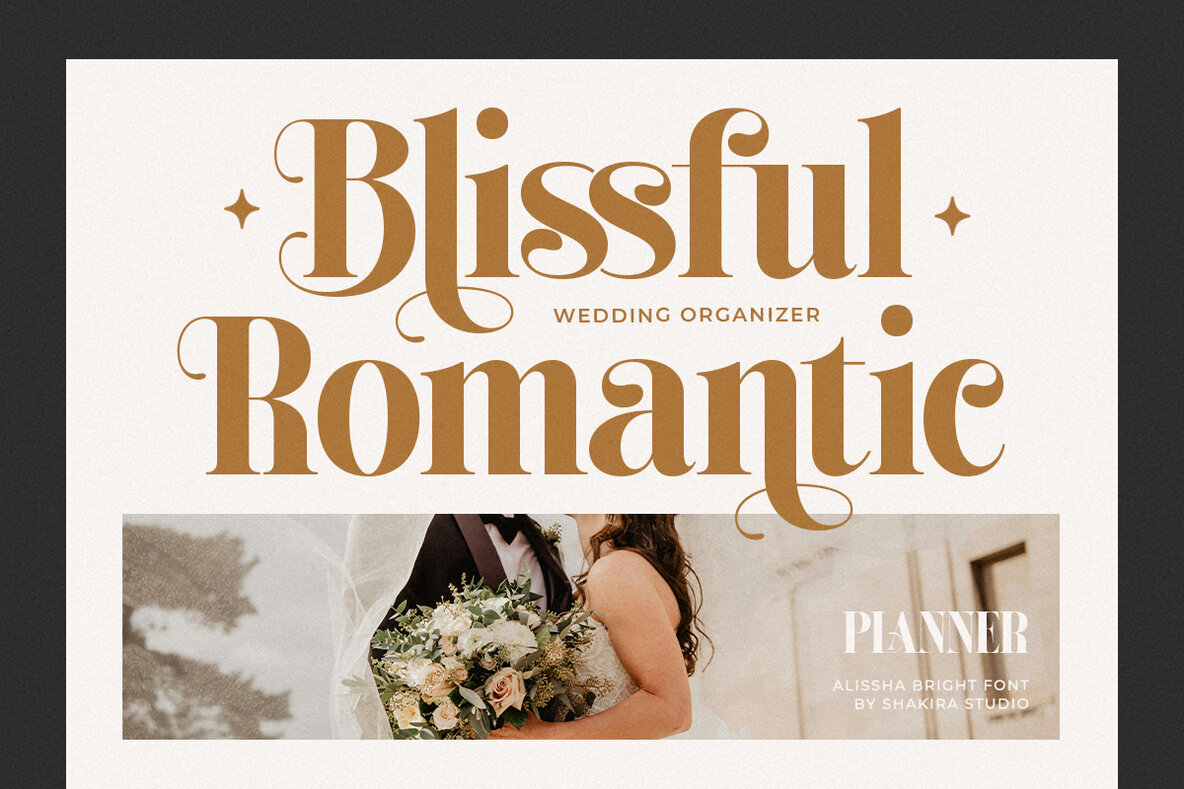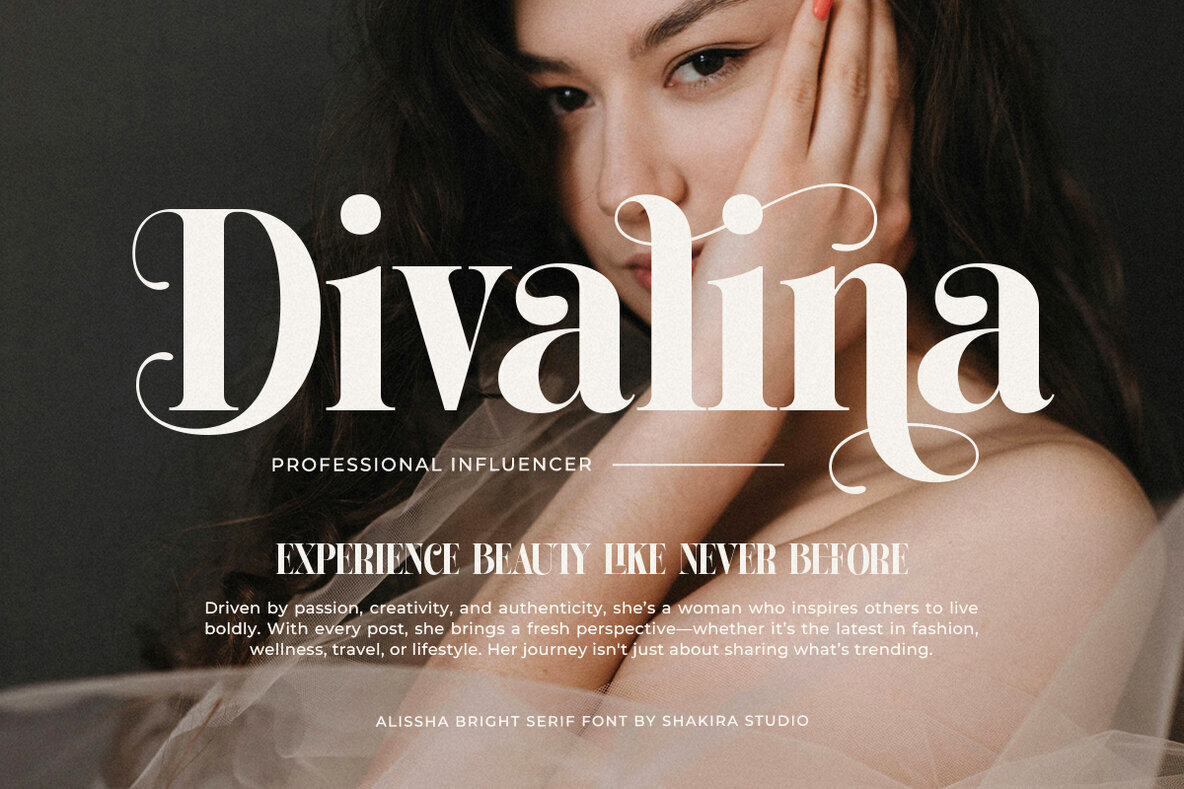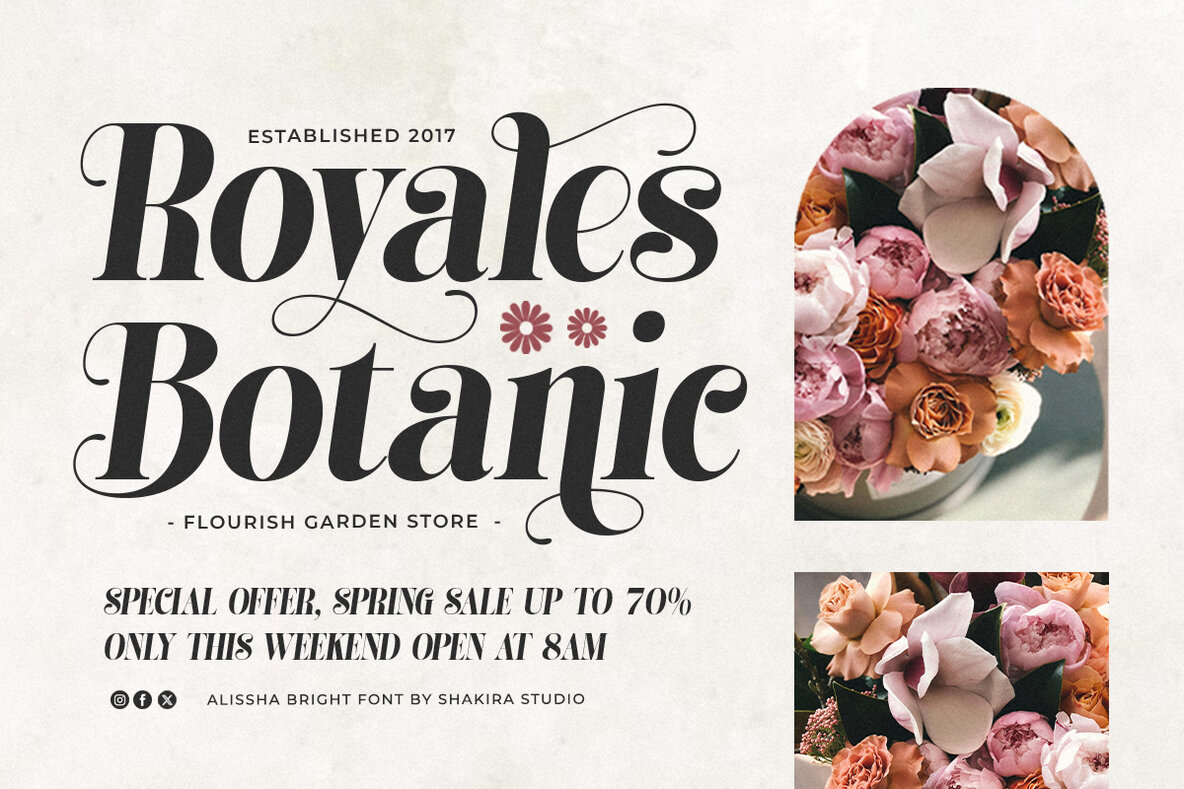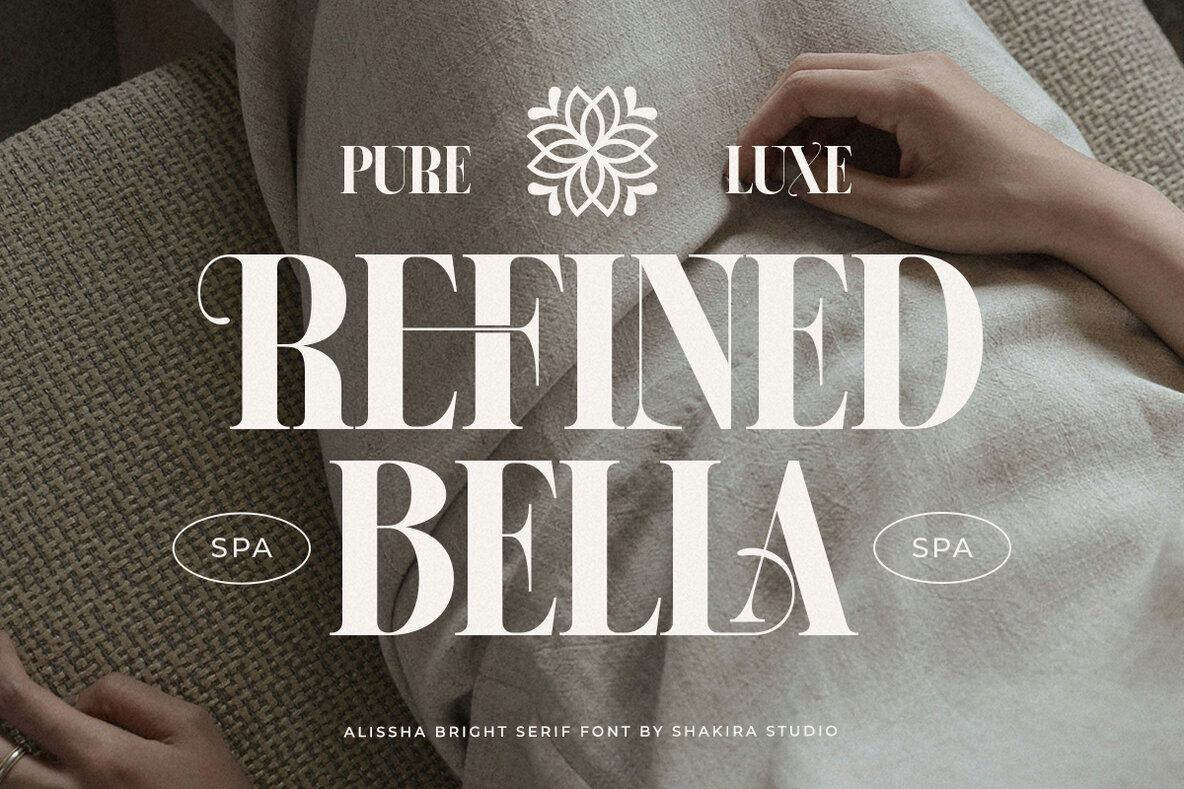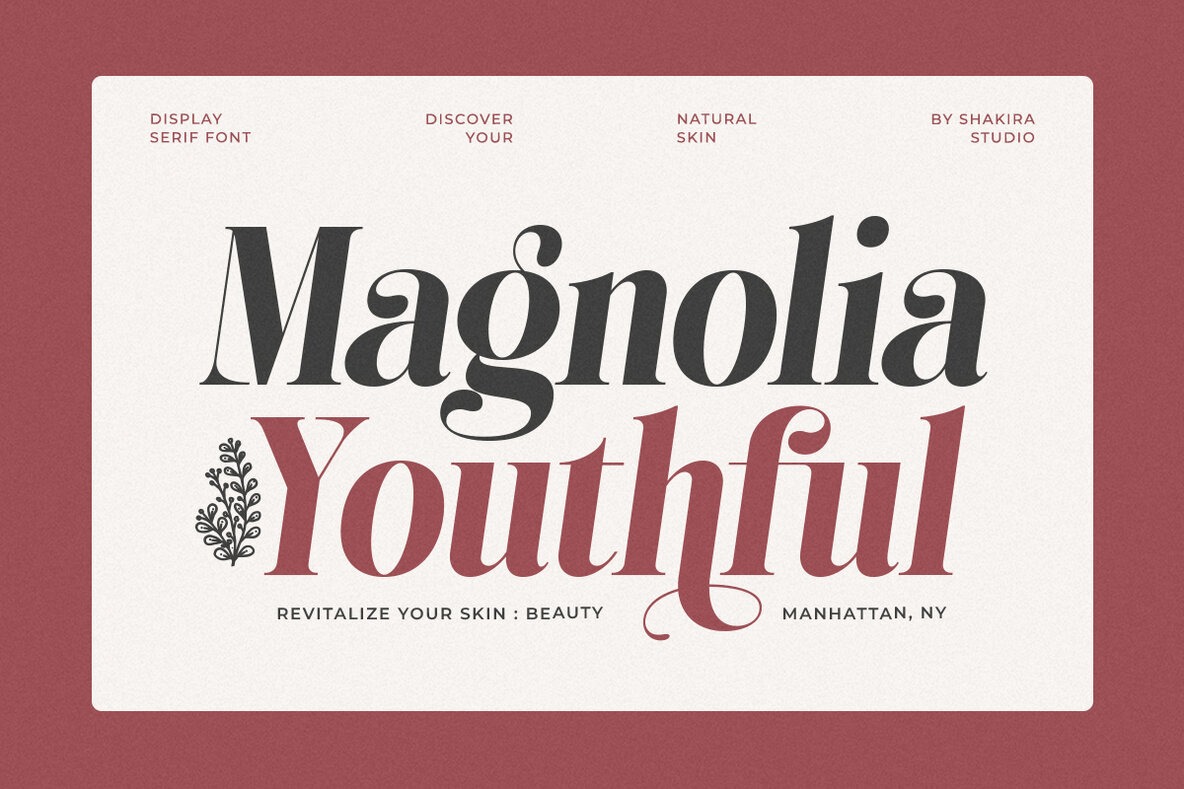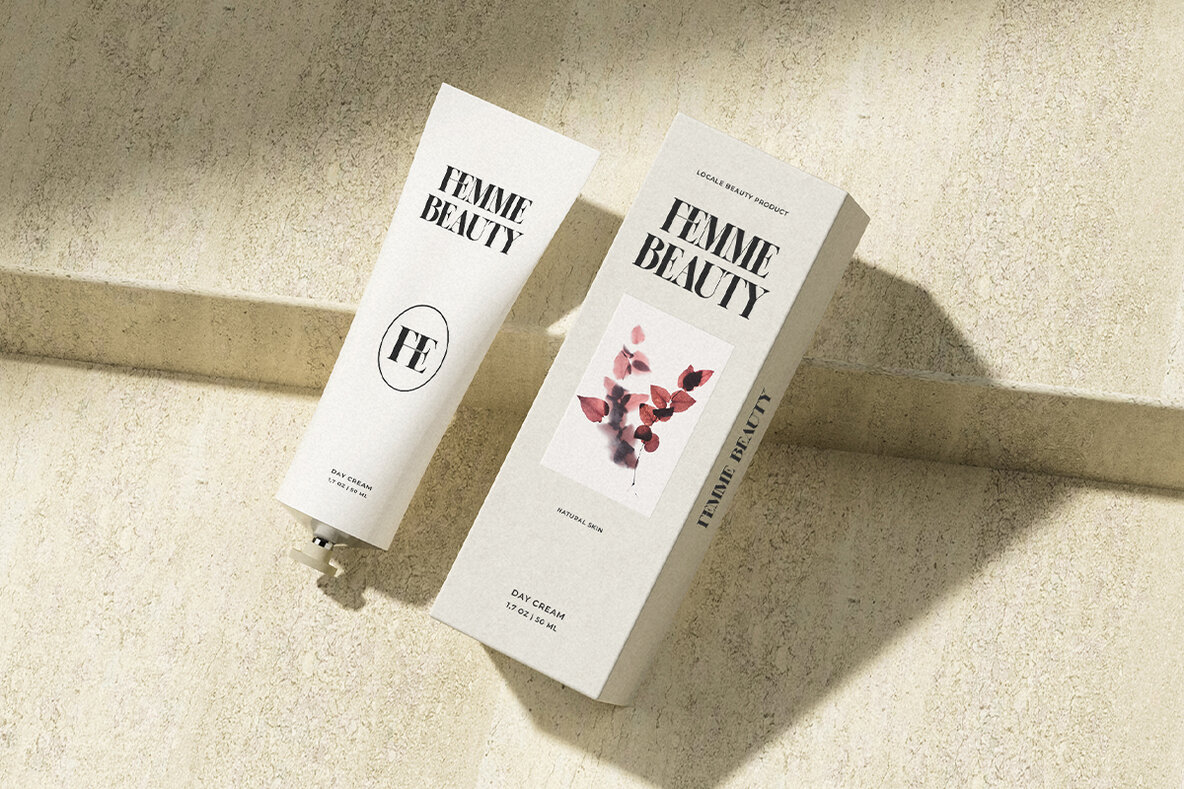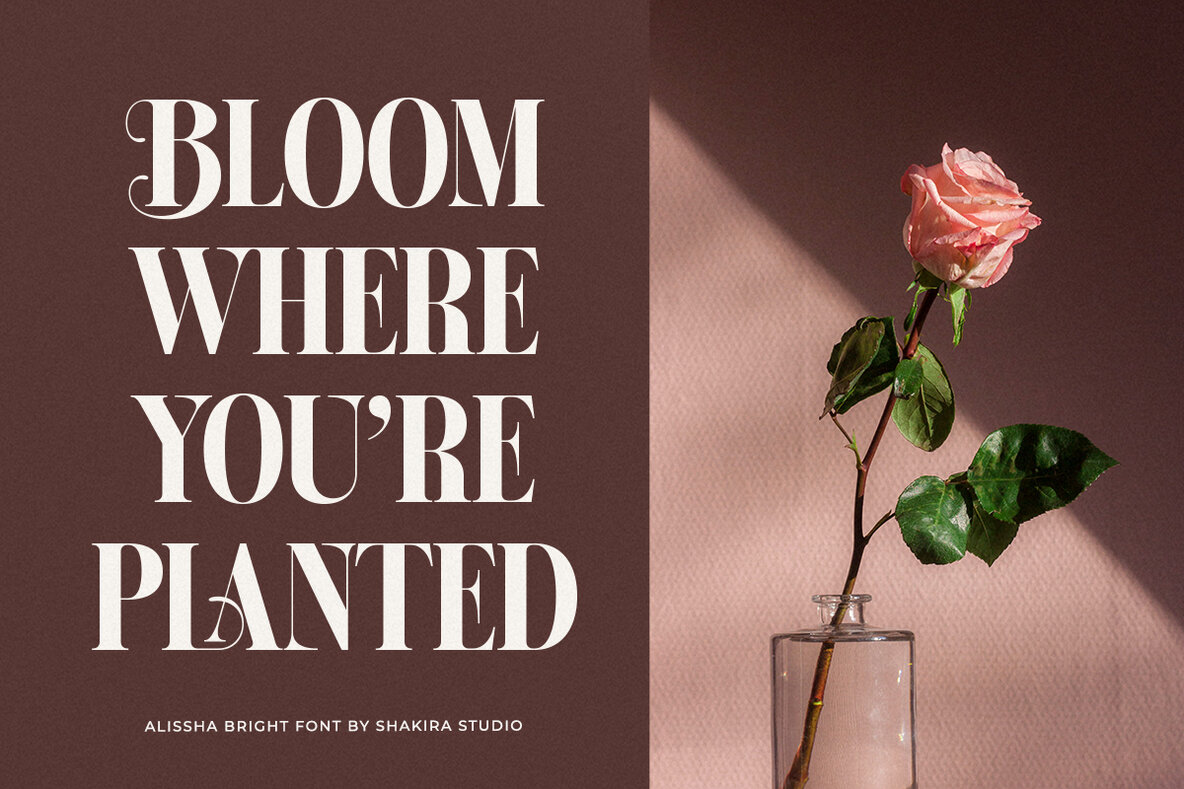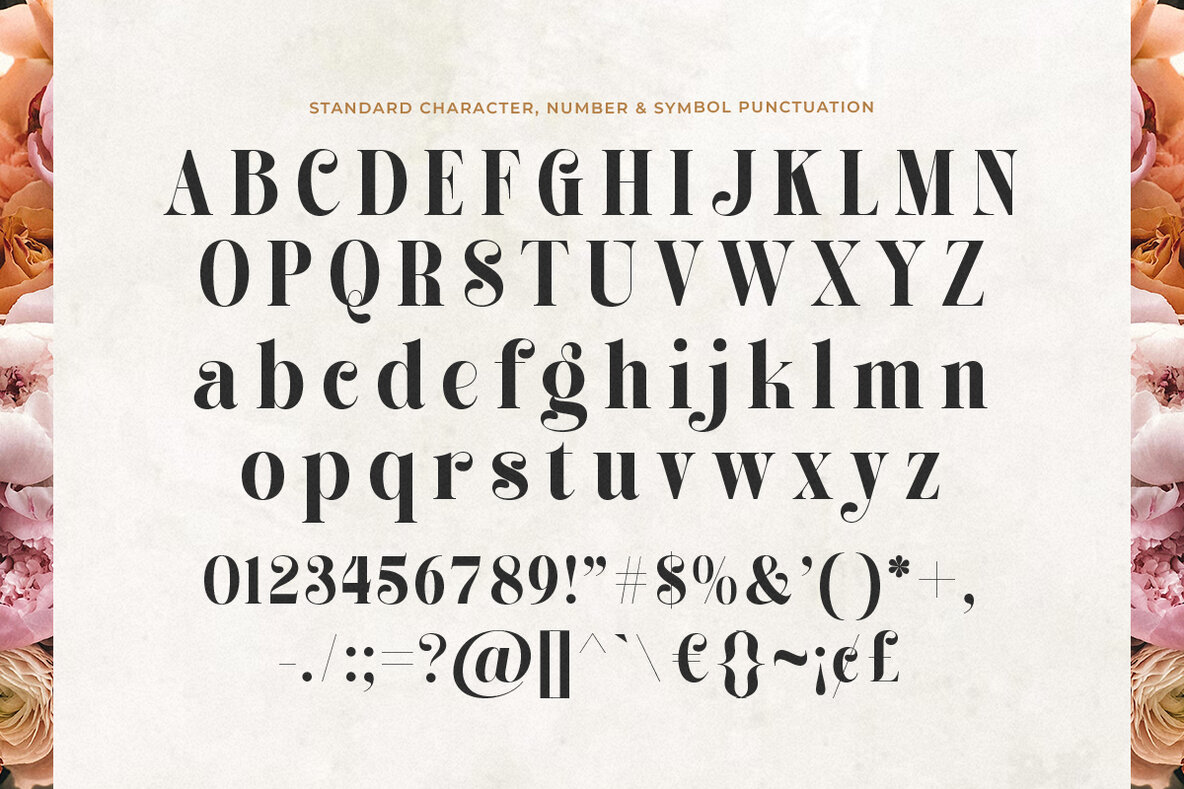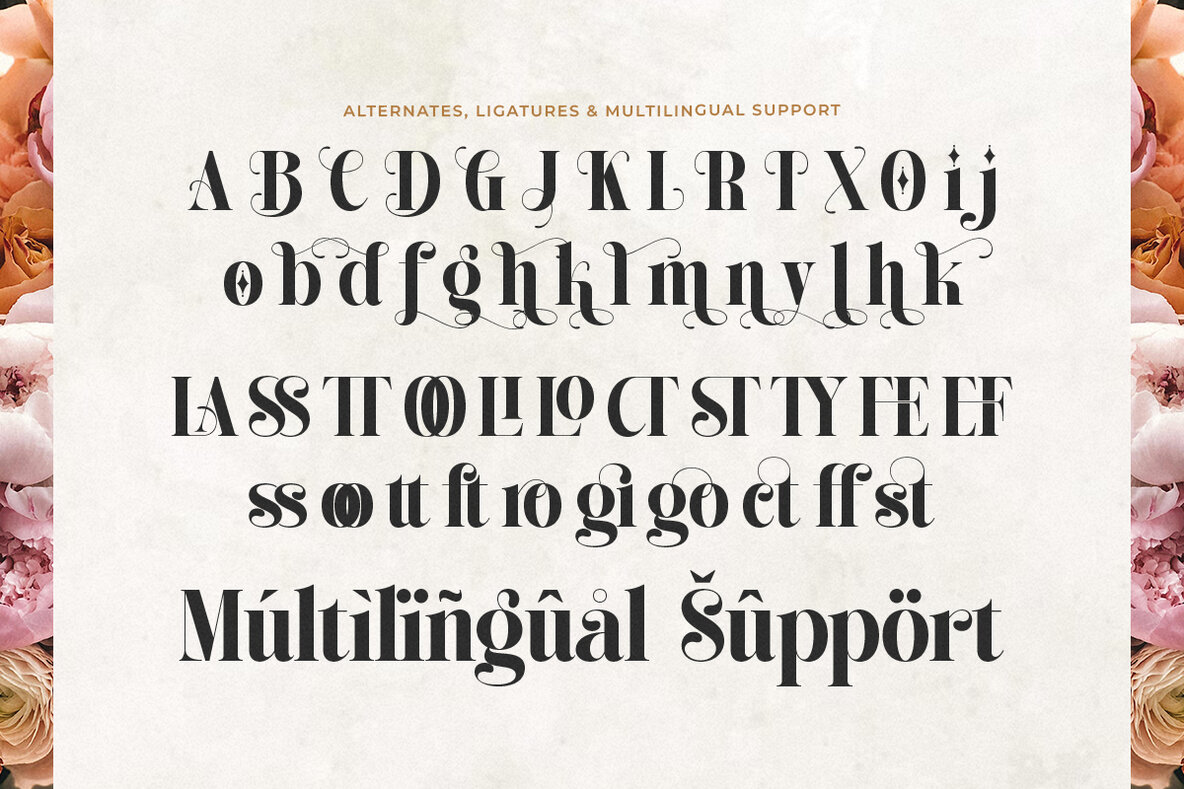
Alissha Bright Font
Alissha Bright is a modern display serif font that brings sophistication and elegance to any design project. Available in both regular and italic styles, this typeface is characterized by its luxurious characters, stylish alternates, and ligatures. Perfect for branding, invitations, editorial projects, and logos, Alissha Bright infuses a refined and timeless quality into your creative work.
This versatile font includes both regular and italic variations and supports all multilingual symbols, ensuring wide-ranging applicability in global design contexts. It features OpenType capabilities, such as ligatures and alternates, and is fully accessible in software like Adobe Illustrator, Adobe Photoshop, Adobe InDesign, and even Microsoft Word. Alissha Bright is PUA encoded, meaning its characters are fully accessible without additional design software. It supports a broad range of languages including Afrikaans, French, German, Italian, Spanish, and many others, making it a robust choice for designers worldwide.